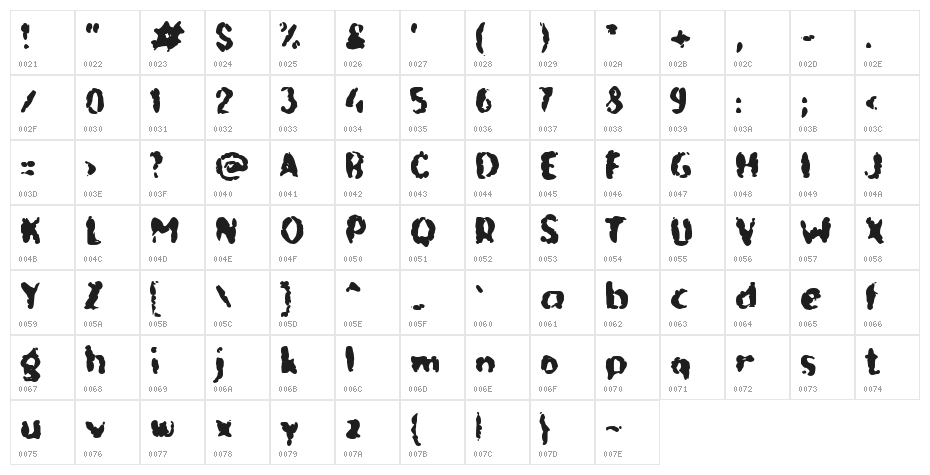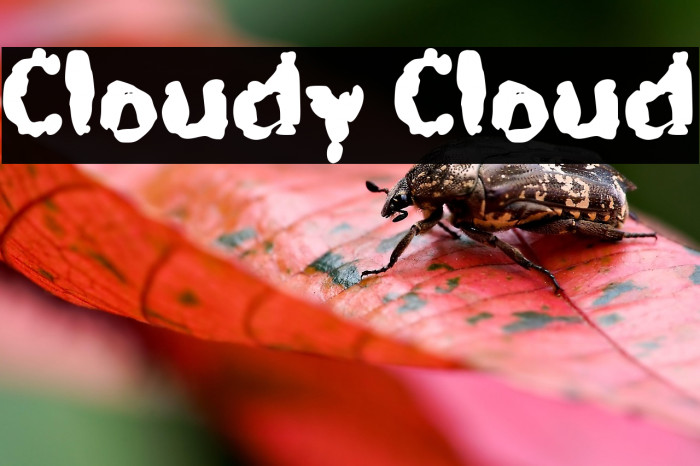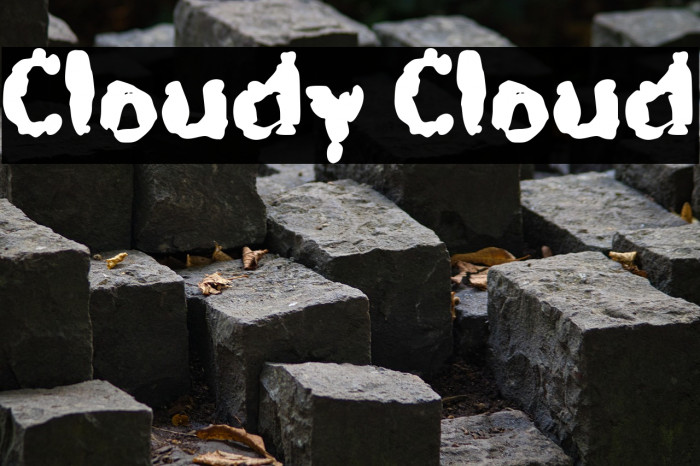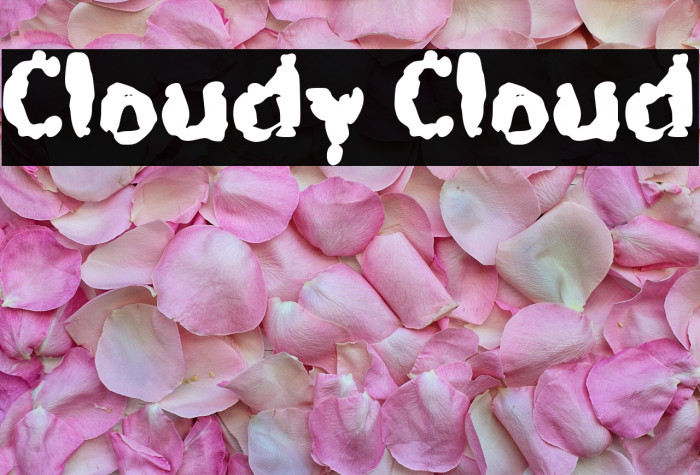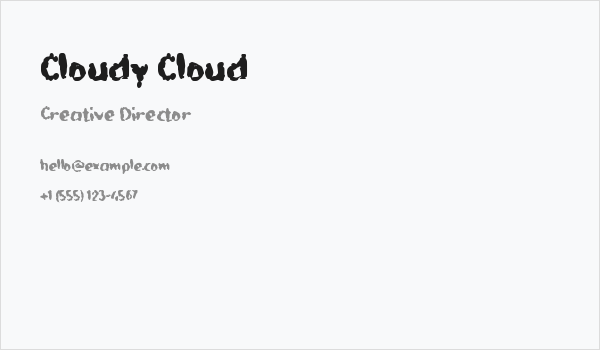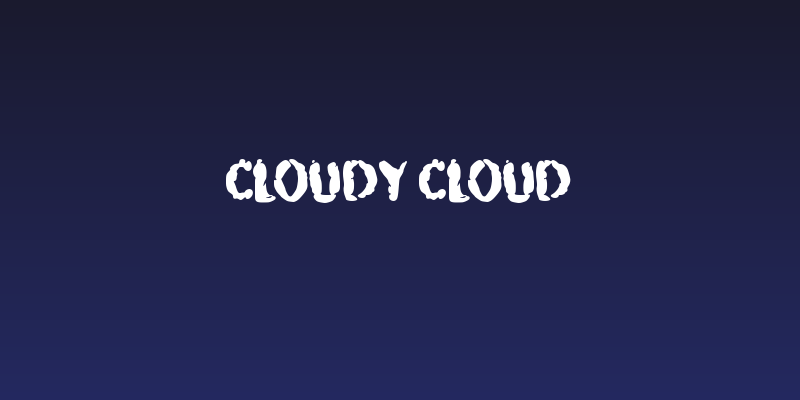
Cloudy Cloud Font
Cloudy Cloud Description
This font features a unique, cloud-like appearance with irregular, rounded edges that give it a playful and whimsical feel. The characters are bold and have a fluid, organic shape, reminiscent of ink blots or clouds. This design creates a sense of movement and dynamism, making it stand out in any context. The font maintains a consistent weight throughout, with each letterform exhibiting a similar thickness, contributing to its cohesive look. The spacing between characters is relatively tight, enhancing the compact and dense appearance of the text. This font is ideal for creative projects that require a distinctive and eye-catching typeface.
| Overall Style | Whimsical, Playful |
| Proposed Projects | Ideal for children's book covers, playful branding, creative posters, and artistic projects. |